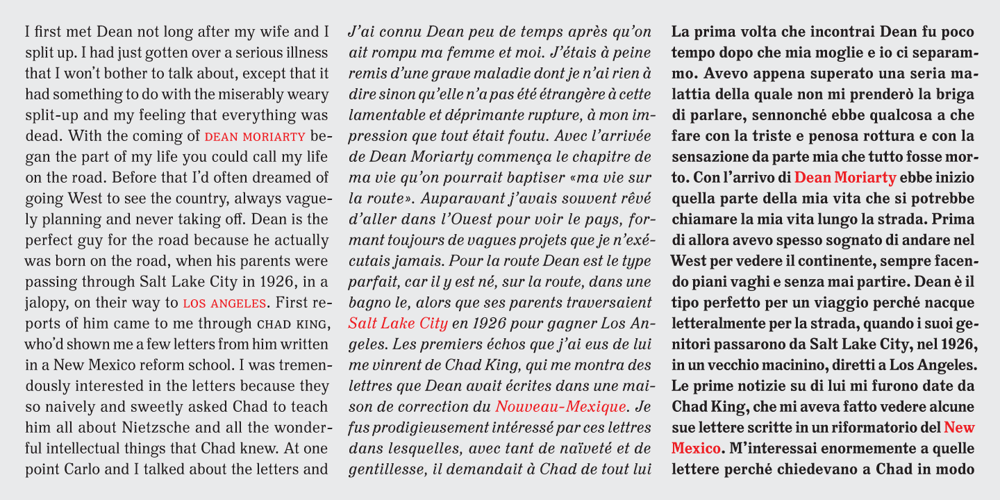
Kner Antikva
Kner Antikva font
Kner Antikva Font Family was designed by Robert Kravjanszki and published by Font HU. Kner Antikva contains 3 styles and family package options. The favorite typeface of the best Hungarian printer, Imre Kner.